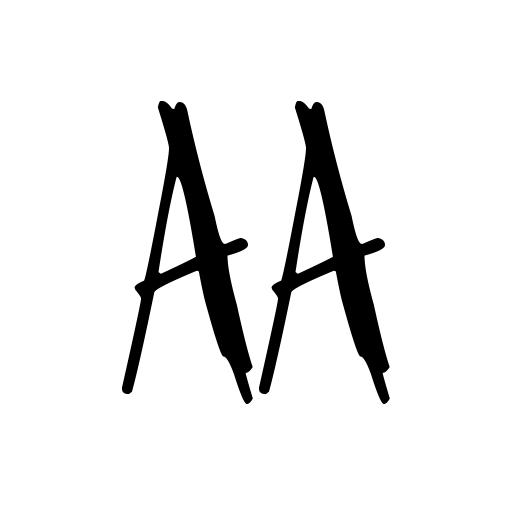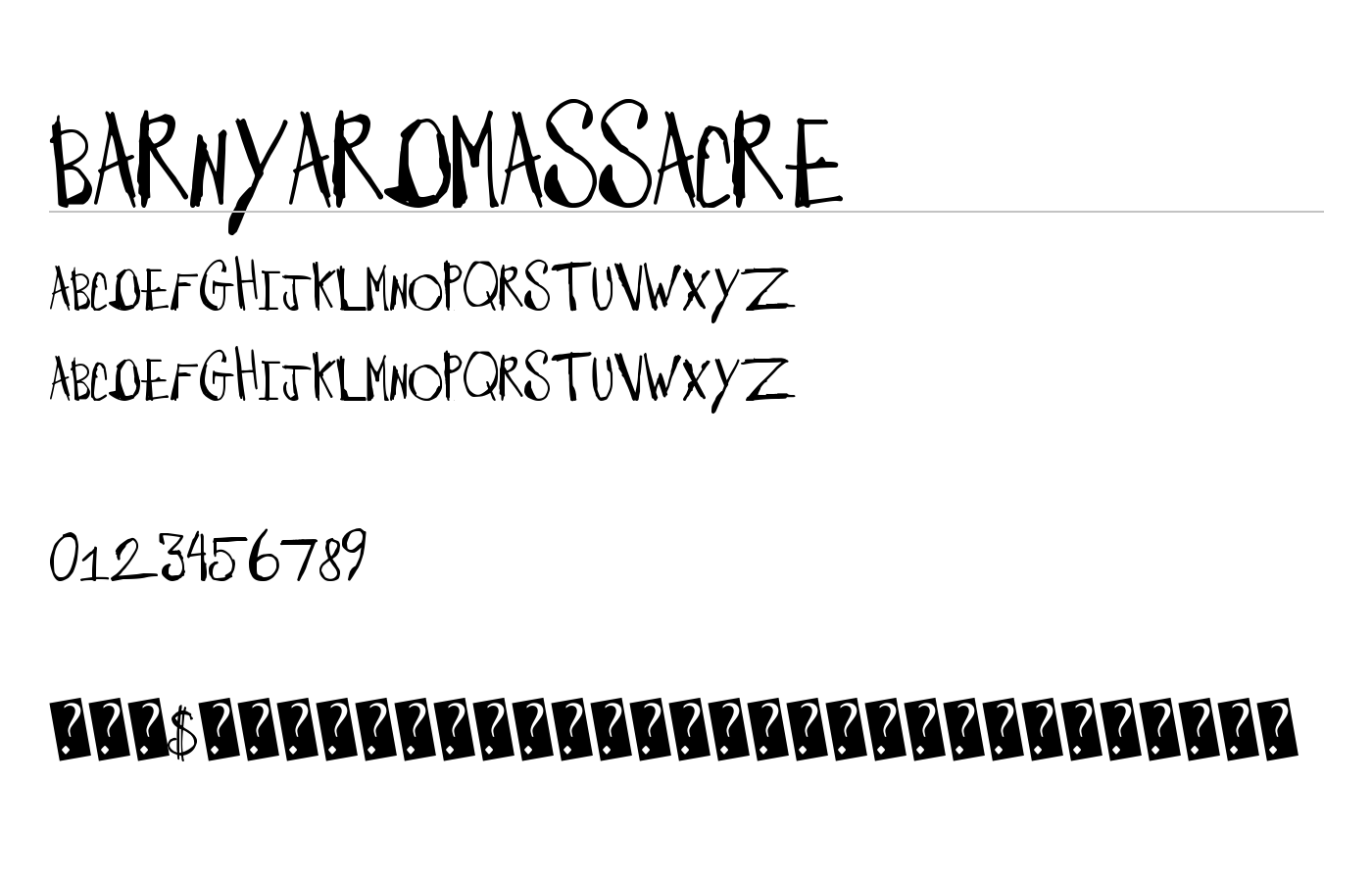
BarnyardMassacre is a quirky, hand-drawn sans serif font with an irregular, playful style that feels both energetic and slightly eerie. Its uneven strokes and whimsical letterforms lend it a casual, expressive personality perfect for creative projects needing a bold, unconventional touch. This font works great for posters, comics, Halloween themes, or any design requiring a fun yet edgy hand-crafted look.
BarnyardMassacre Font
About BarnyardMassacre Font
| Font family | BarnyardMassacre Font |
| Designer | Max Infeld |